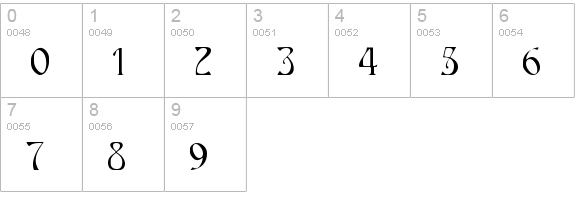
NouveauExtended Normal is the standard, neutral variant in the NouveauExtended typeface family \xE2\x80\x94 well suited to general body text, paragraphs, and standard typographic work.
NouveauExtended Normal is a sleek and modern font that exudes sophistication and elegance. With its clean lines and contemporary design, this font is perfect for a wide range of projects, from branding to editorial design. The extended character set ensures versatility and compatibility with various languages. What sets NouveauExtended Normal apart is that it is available for free download at FontsMarket.com. This means you can elevate your designs without having to spend a dime. Don't miss out on this fantastic opportunity to enhance your creative projects with this stunning typeface. Download NouveauExtended Normal today and take your designs to the next level.